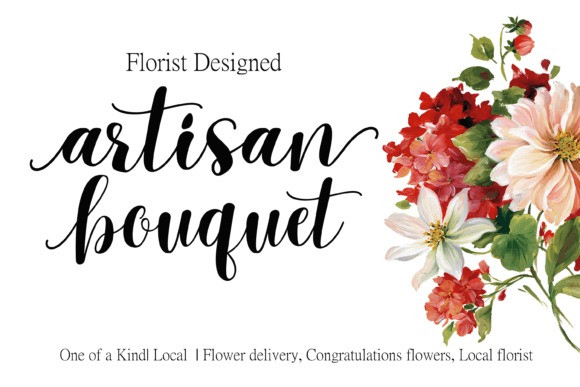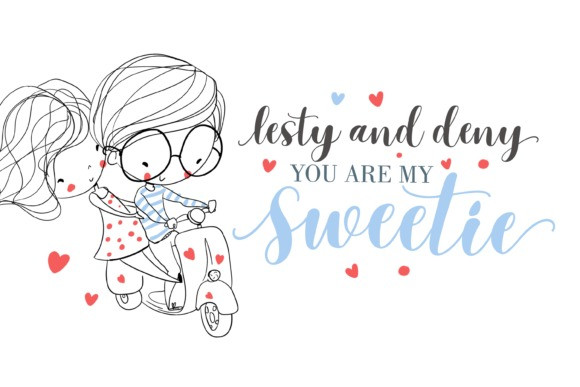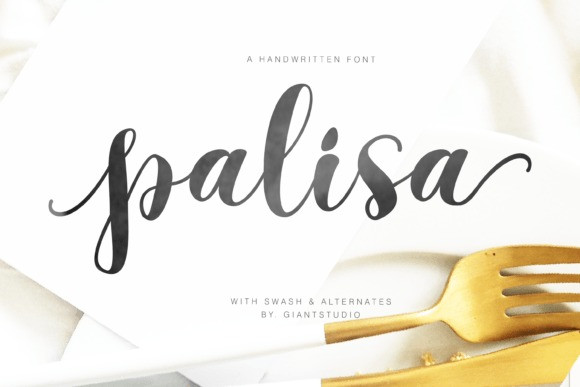
Palisa Script Font
Palisa Script Font is a modern calligraphy script font. Every single letter has been carefully crafted to make your text look beautiful. With a modern script style, this font will be perfect for many different projects, for example, invitations, greeting cards, posters, name cards, quotes, blog headers, branding, logo, fashion, apparel, letter, stationery, and more!